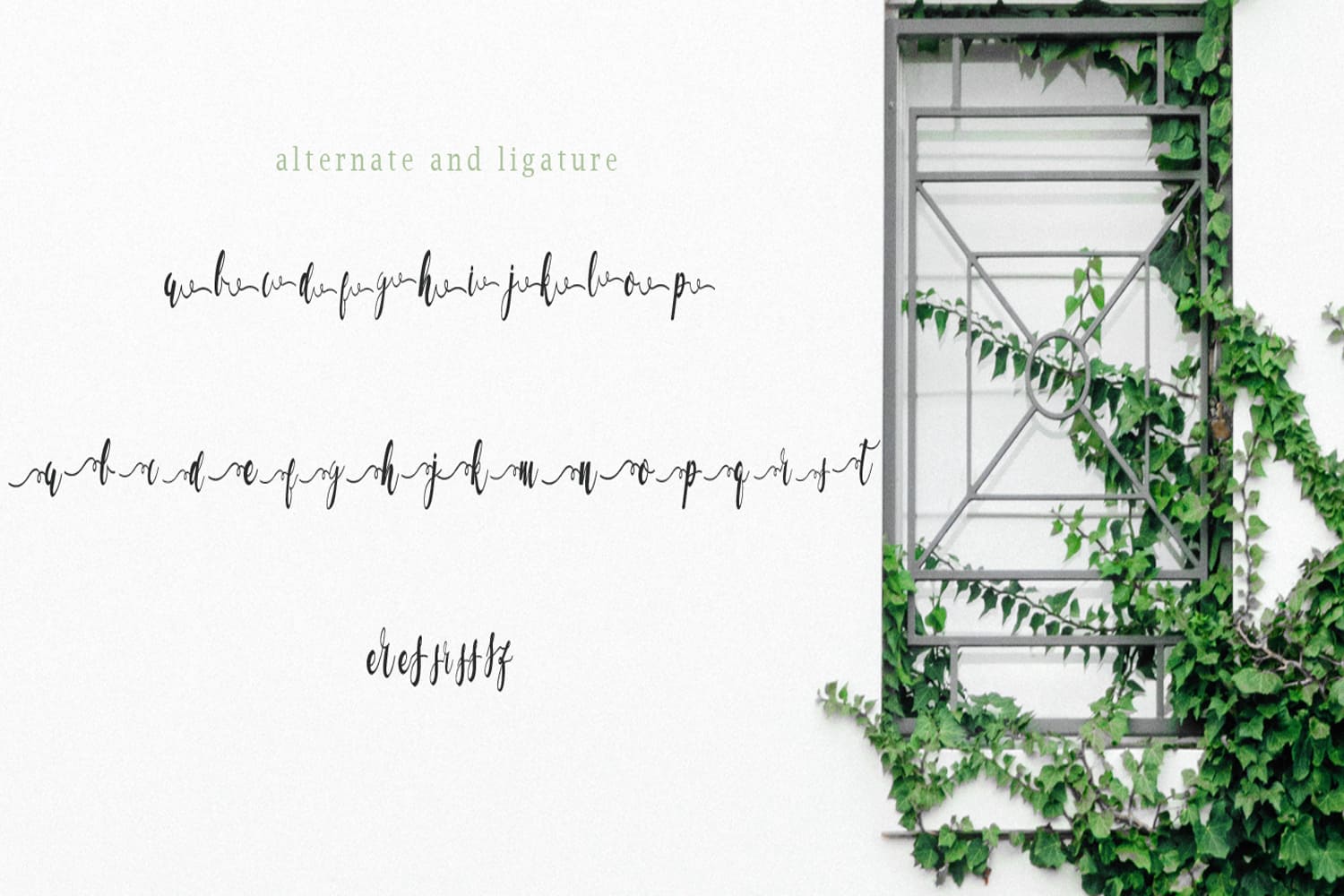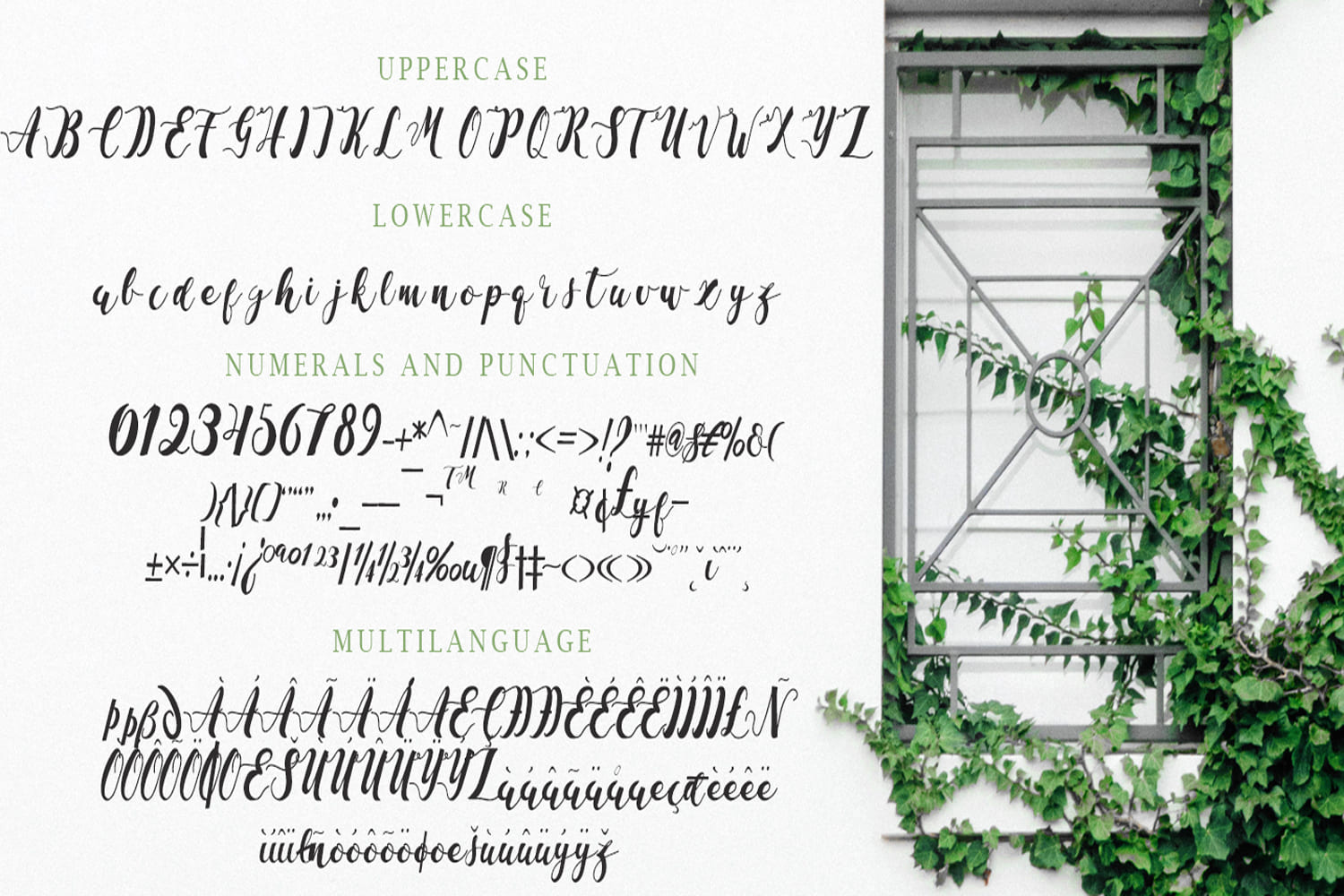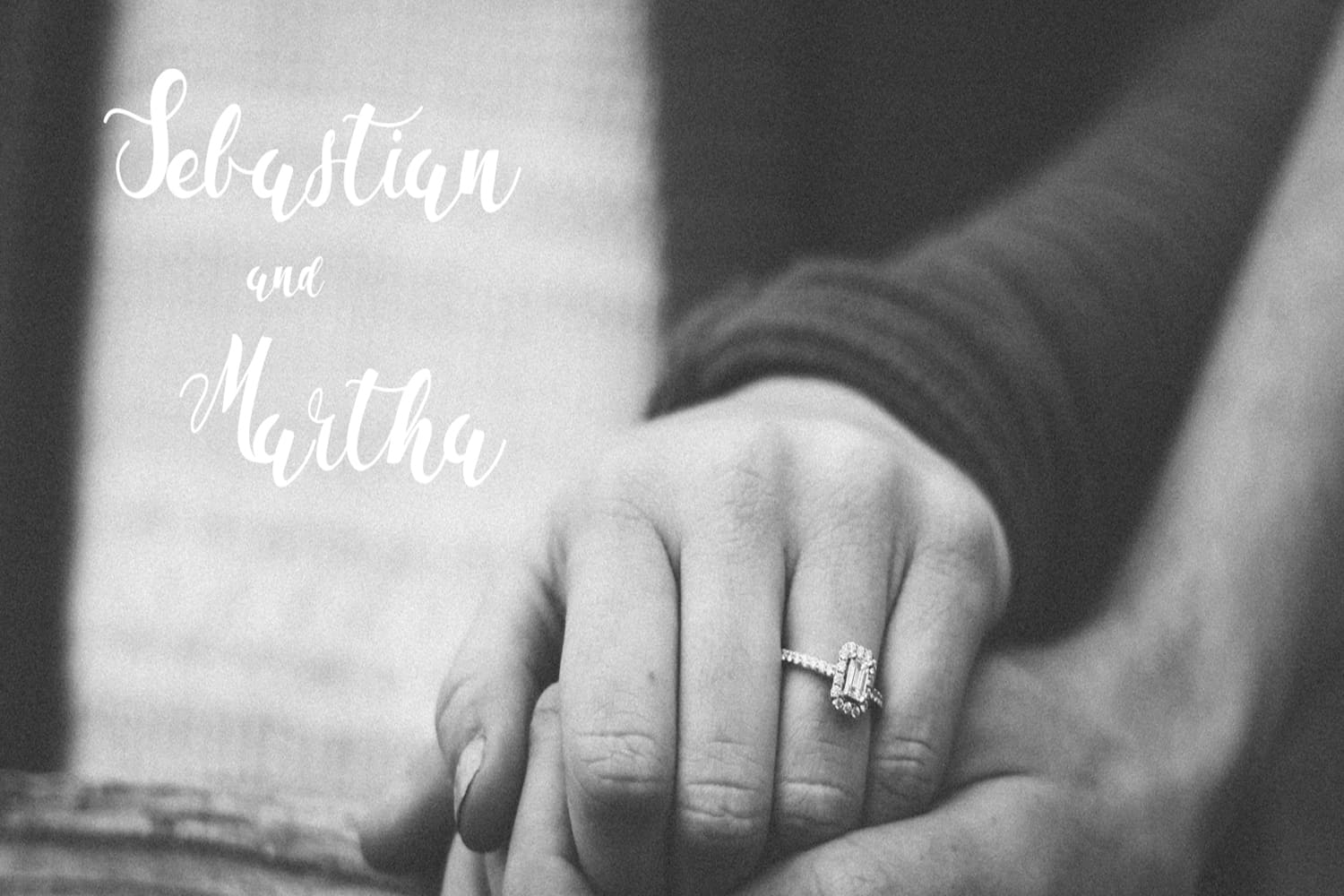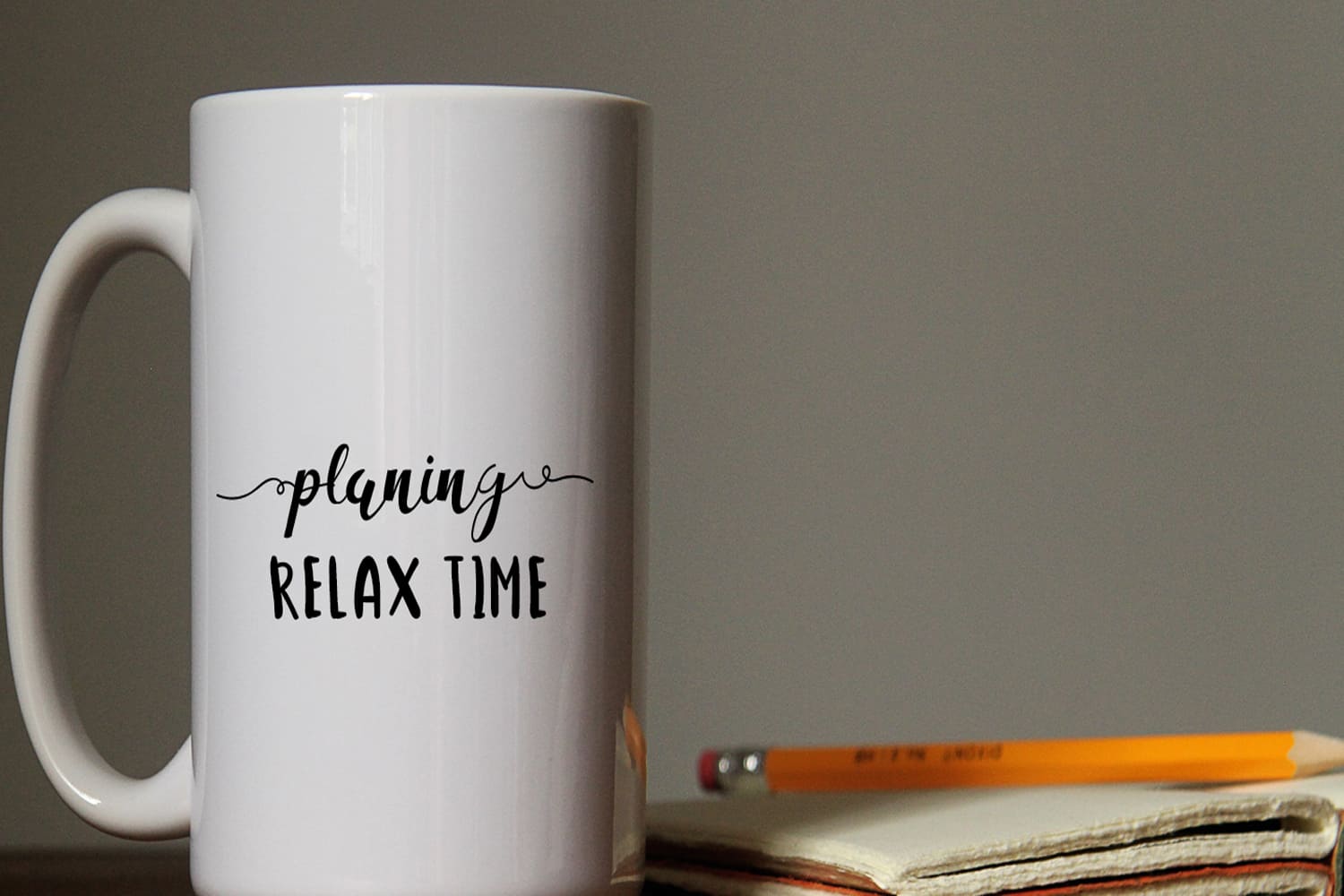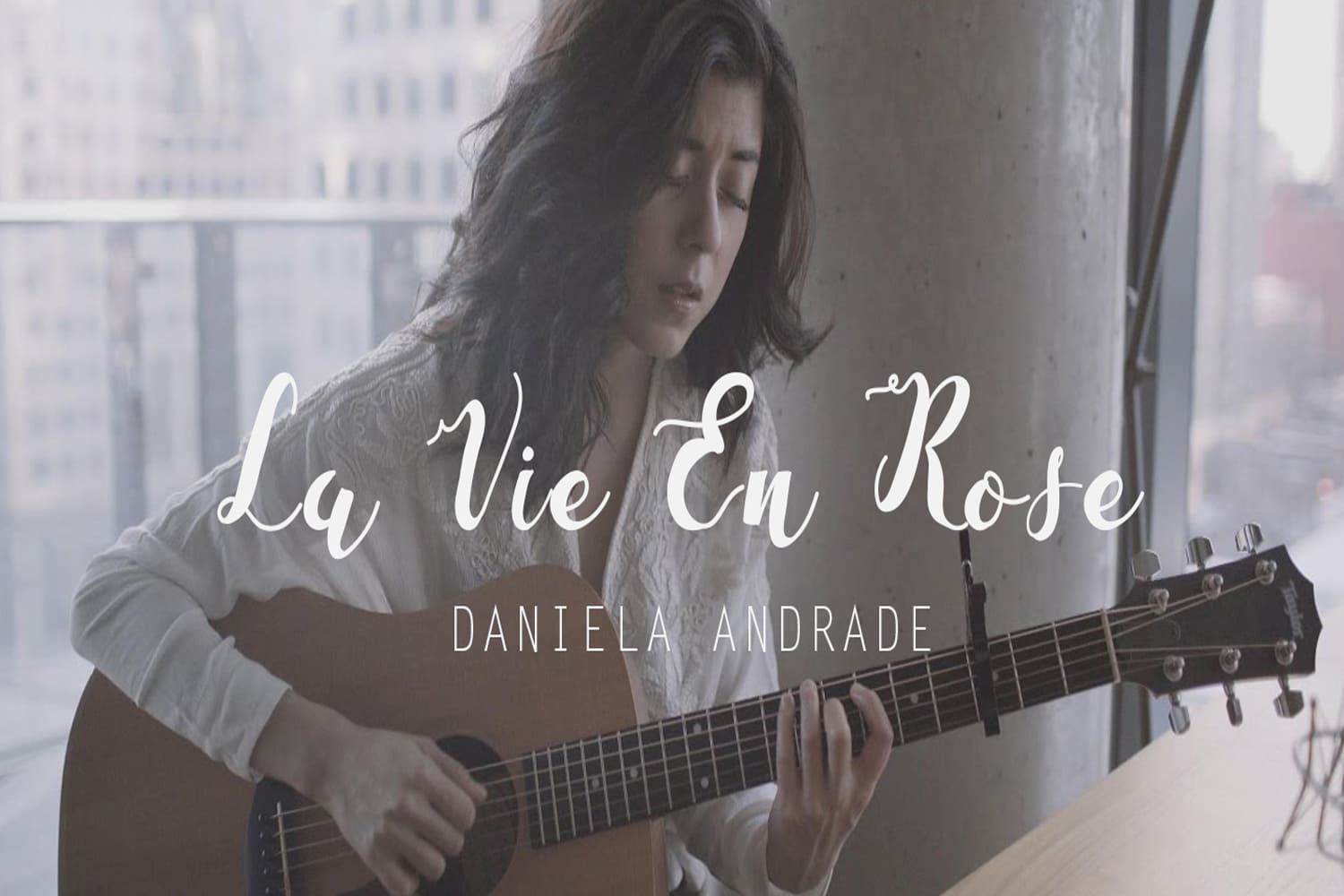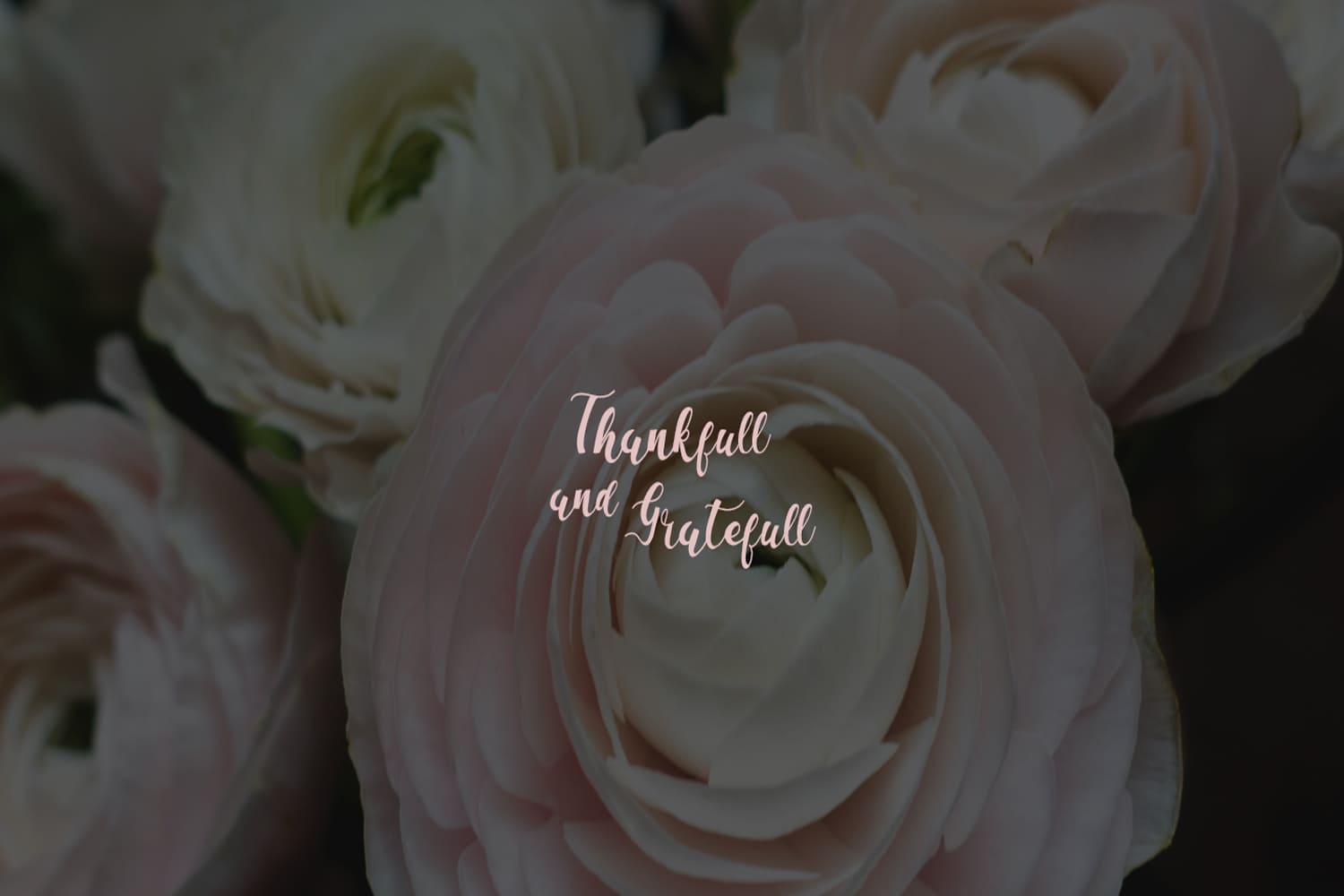
La Vie En Flower Family (2 fonts)
La vie en Flower is a very feminine and beautiful font with a vintage dressing that is perfect for every project of your design.